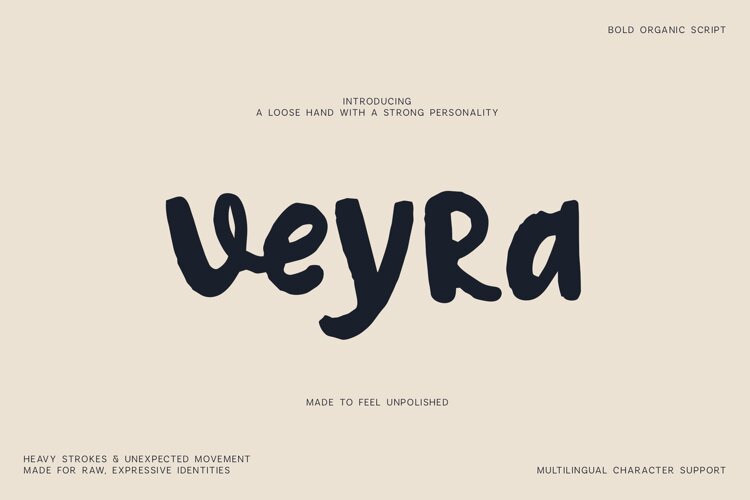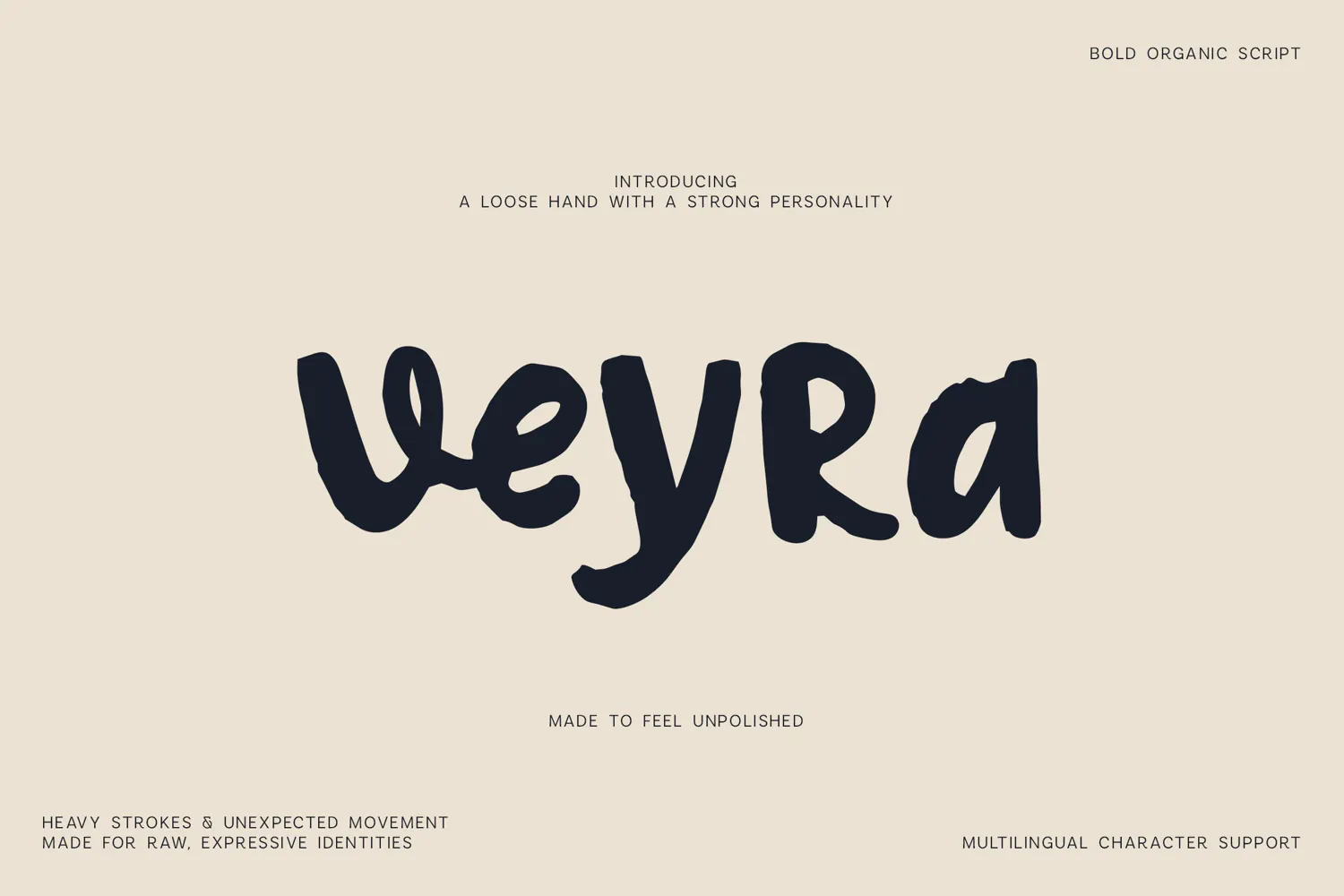
Veyra Bold Organic Handwritten Font
Introducing Veyra, a bold handwritten font created with heavy organic strokes, playful irregularities, and the spontaneous movement of natural handwriting. Its imperfect construction gives every letter personality while maintaining enough consistency to create strong and cohesive typography.
Veyra is designed for projects that need to feel human, expressive, creative, and confidently handmade. Rather than following perfectly polished geometric forms, its letters feature subtle changes in width, shape, and movement that recreate the character of real hand-drawn lettering.
The combination of chunky lowercase forms and distinctive uppercase characters makes Veyra especially useful for logos, branding, packaging, posters, editorial design, product graphics, book covers, invitations, social media posts, advertising, headlines, labels, stationery, album covers, and creative typography.
Use Veyra for oversized headlines and statement typography or combine it with a clean serif or sans serif for a strong contrast between polished and handmade elements.
The character set includes uppercase and lowercase letters, numbers, punctuation, symbols, extended accented characters, and multilingual support, giving you plenty of flexibility for international design projects.